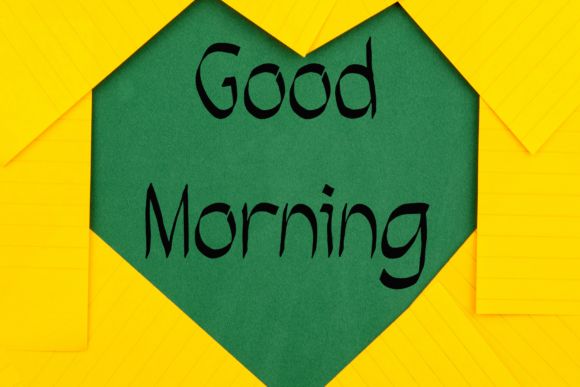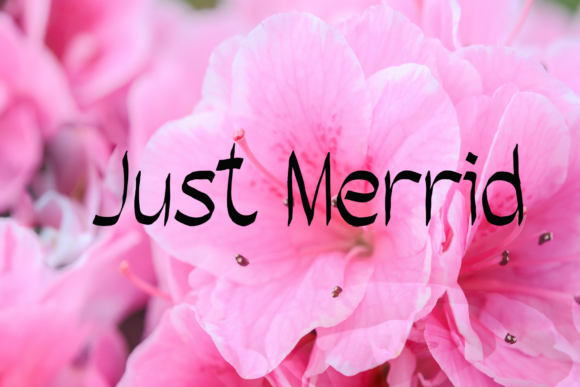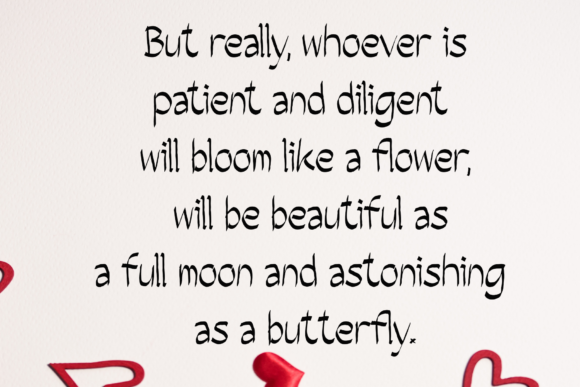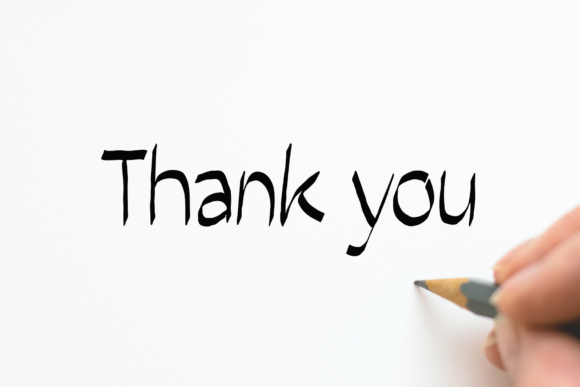
Darelina Font: Elevate Your Designs with a Unique and Minimalist Handwritten Style
In the world of typography, fonts play a crucial role in conveying the tone and personality of a design. For designers and crafters looking to add a touch of elegance and sophistication to their projects, the Darelina Font is an excellent choice. This unique and minimalist handwritten font is versatile, stylish, and can easily be matched with a wide range of projects.
What is Darelina Font?
Darelina Font is a carefully crafted handwritten font that exudes a sense of simplicity and refinement. Its minimalist approach makes it an ideal choice for designers who want to add a personal touch to their work without overpowering the overall design. The font’s clean lines, subtle curves, and delicate feel make it perfect for creating visually appealing text-based designs.
Key Features of Darelina Font
- Unique and Handwritten: Darelina Font boasts a distinctive handwritten style that sets it apart from other fonts.
- Minimalist Approach: The font’s simplicity makes it easy to pair with various design elements, ensuring a harmonious and balanced look.
- Versatile: Darelina Font can be used in a wide range of projects, from greeting cards and logos to comic weddings and more.
- Elegant and Sophisticated: The font’s refined feel adds a touch of elegance and sophistication to any design.
Perfect for Various Projects
Darelina Font’s versatility makes it an excellent choice for various design projects, including:
- Greeting Card Logos: Add a personal touch to your greeting card designs with Darelina Font’s elegant and handwritten style.
- Comic Weddings: Create unique and eye-catching wedding designs, such as invitations, programs, and signage, with this charming font.
- Branding and Packaging: Use Darelina Font to create distinctive brand identities, labels, and packaging designs that stand out.
- Stationery and Journals: Add a touch of sophistication to your stationery and journal designs with this beautiful handwritten font.
Tips for Using Darelina Font
To get the most out of Darelina Font, consider the following tips:
- Pair with Bold Graphics: Combine Darelina Font with bold graphics or illustrations to create a striking contrast.
- Experiment with Colors: Try pairing the font with different colors to create a unique and eye-catching design.
- Use for Headings and Titles: Use Darelina Font for headings and titles to add a touch of elegance and sophistication.
Darelina Font is a unique and minimalist handwritten font that can elevate your designs to the next level. Its versatility, elegance, and sophistication make it an excellent choice for designers and crafters looking to add a personal touch to their projects. With its wide range of applications and easy-to-use style, Darelina Font is sure to become a staple in your design toolkit. So why wait? Add Darelina Font to your creative arsenal and watch your designs stand out!
Whether you’re a seasoned designer or a crafty DIY enthusiast, Darelina Font is an excellent addition to your creative toolbox. Its ability to add a touch of elegance and sophistication to any design makes it a valuable resource for anyone looking to create visually appealing text-based designs.
In conclusion, Darelina Font is a must-have for designers and crafters looking to elevate their designs with a unique and minimalist handwritten font. Its versatility, style, and ease of use make it an excellent choice for a wide range of projects. So go ahead, give Darelina Font a try, and experience the difference it can make in your designs!